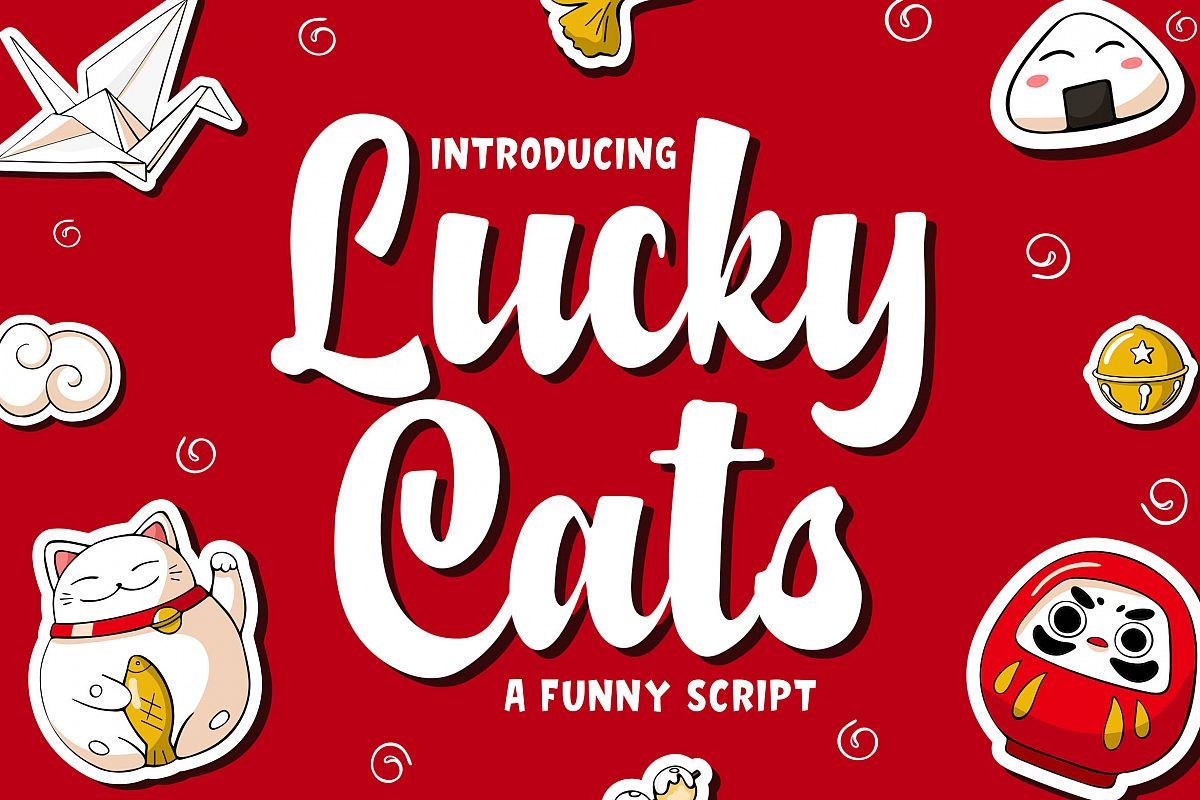
Introducing of our new product the name is Lucky Cats Funny Script Font. Lucky Cats good for kids theme, Crafted, logotype, label, badge, headline, signature, packaging and any more.